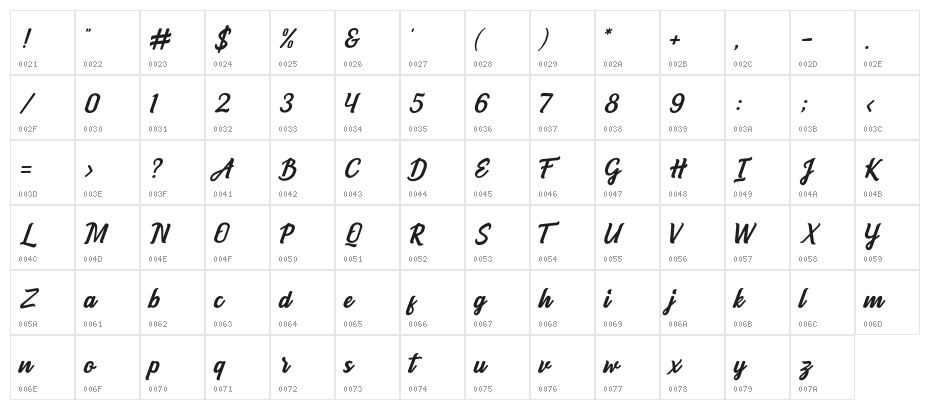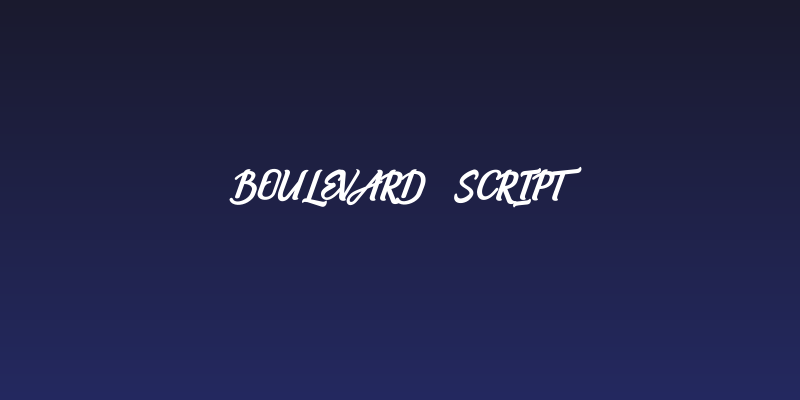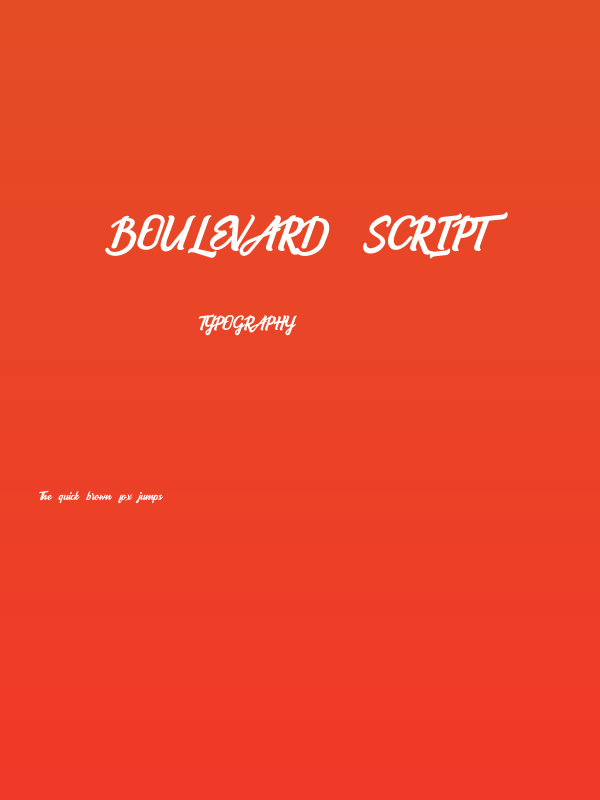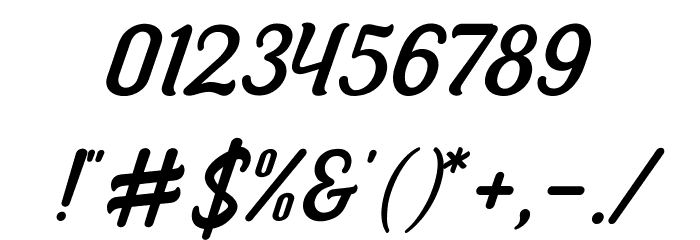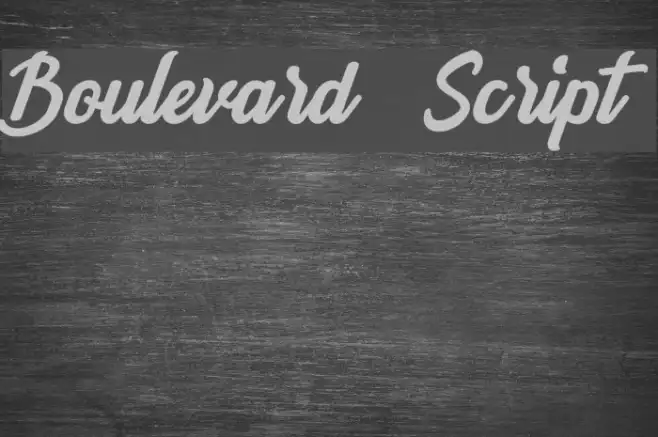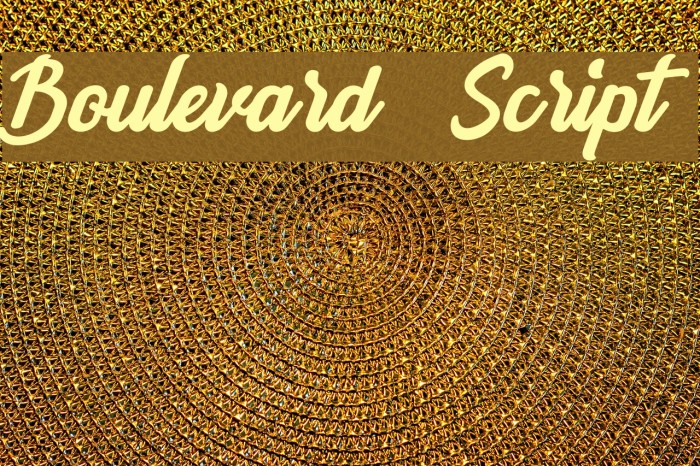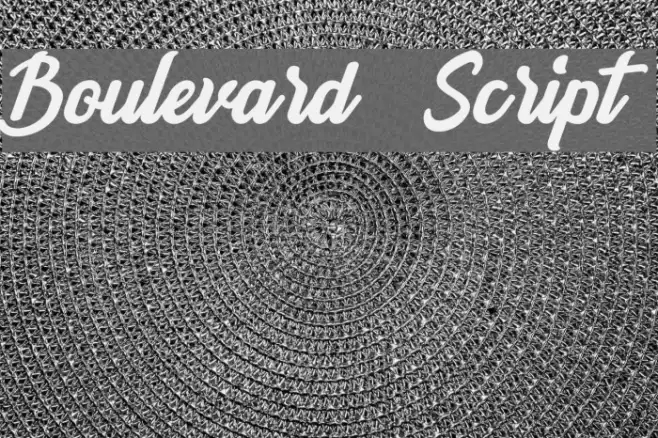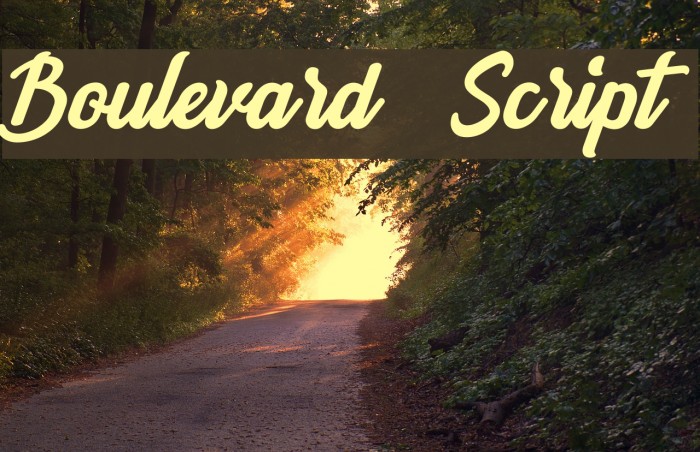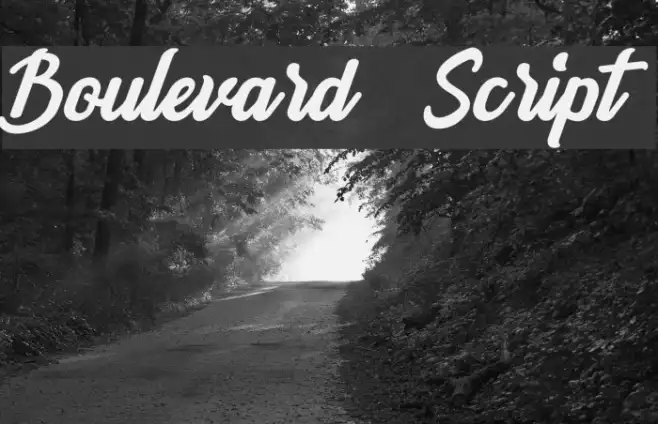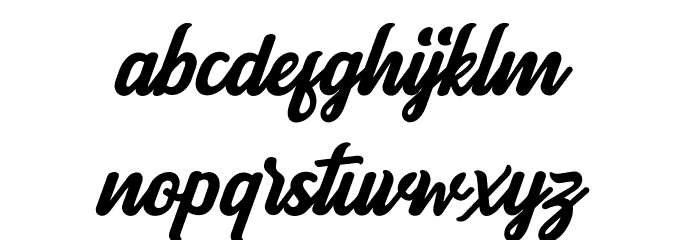
Boulevard Script Font
Boulevard Script Description
This font exudes a classic and elegant script style, characterized by its flowing, cursive letterforms. The uppercase letters are bold and sweeping, with distinctive loops and flourishes that give a sense of movement and grace. The lowercase letters maintain a consistent flow, connecting smoothly in a way that mimics natural handwriting. Numbers and special characters are designed to complement the overall script style, maintaining the same elegant curves and bold presence. This font is perfect for projects that require a touch of sophistication and style.
| Proposed Projects | Ideal for wedding invitations, elegant branding, greeting cards, and decorative headlines. |